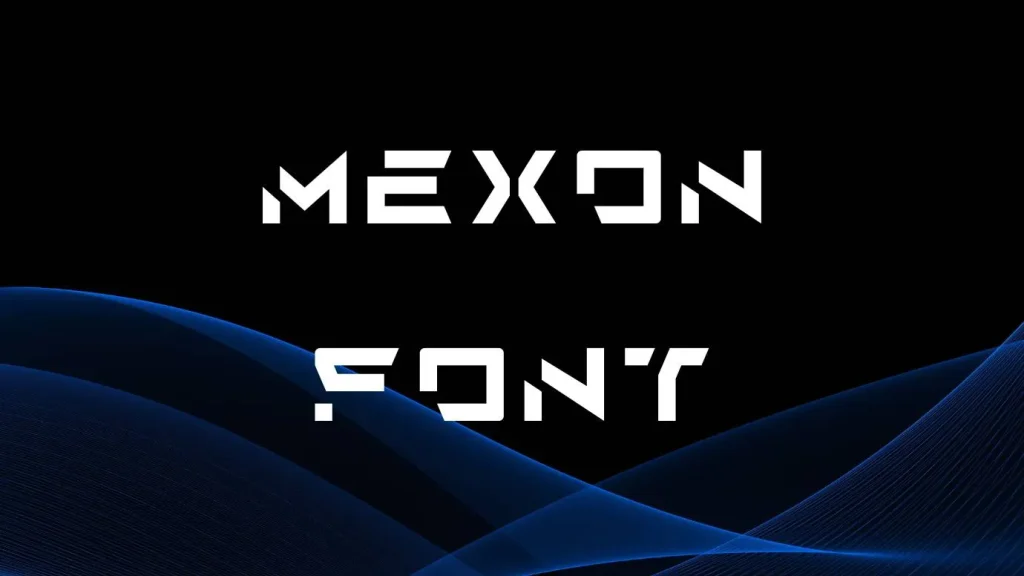
A techno typeface with a clean, contemporary, and futuristic look is Mexon Display Font. Only available in all caps, this typeface also supports several languages and has stylistic alternates.
Style Techno
Designer Linecreative